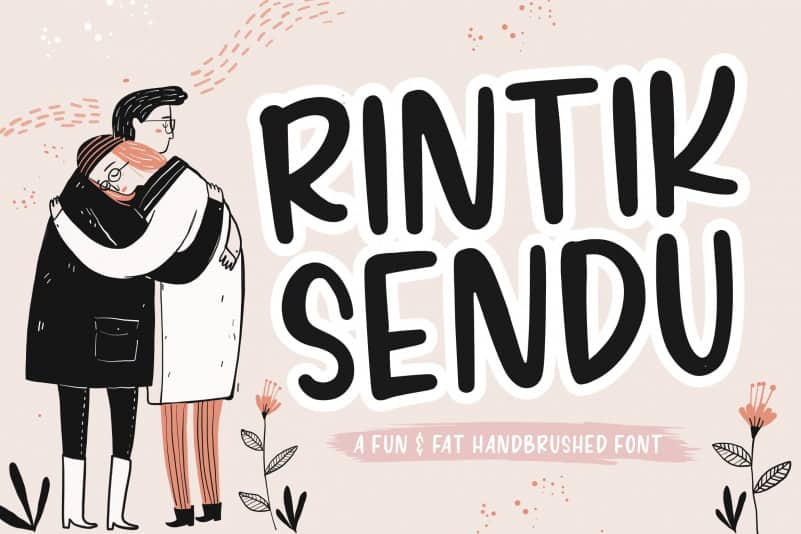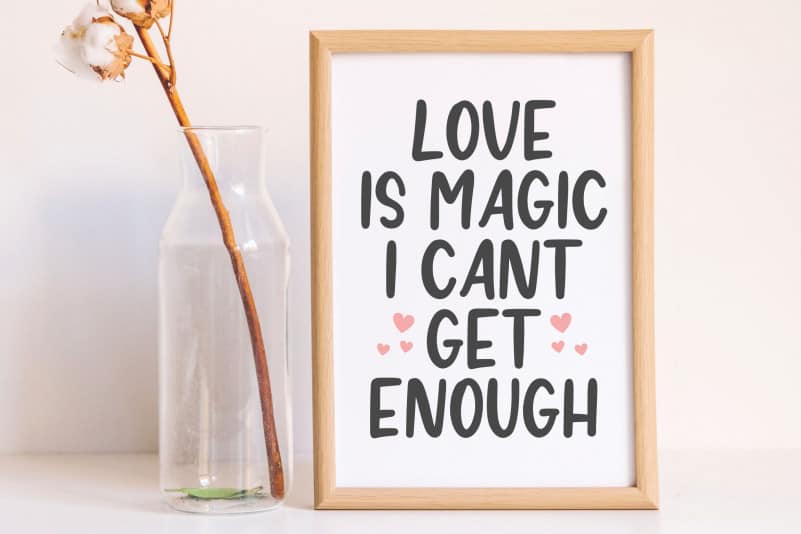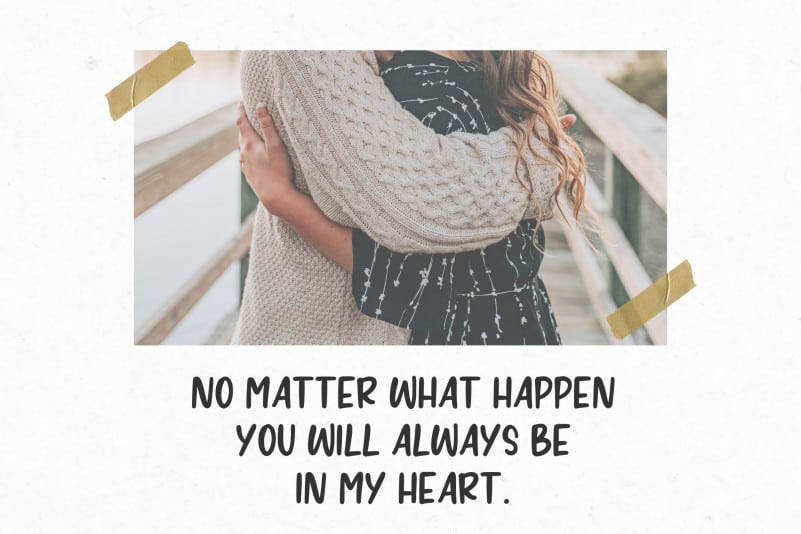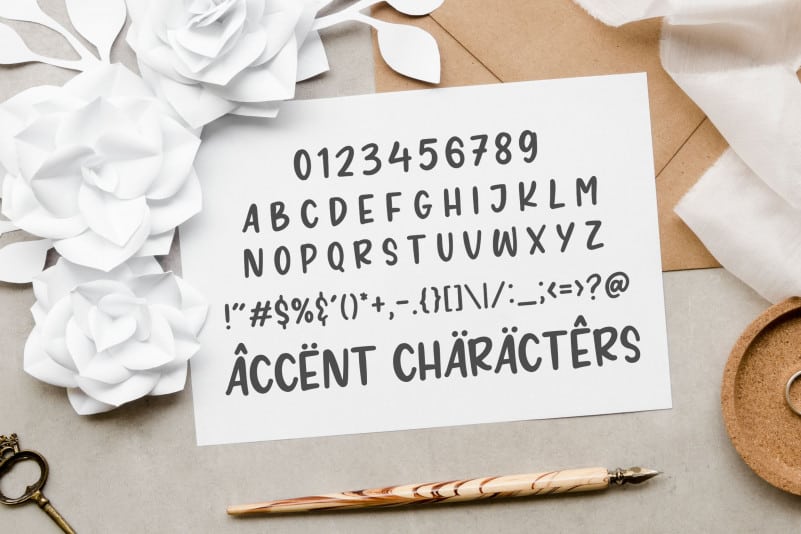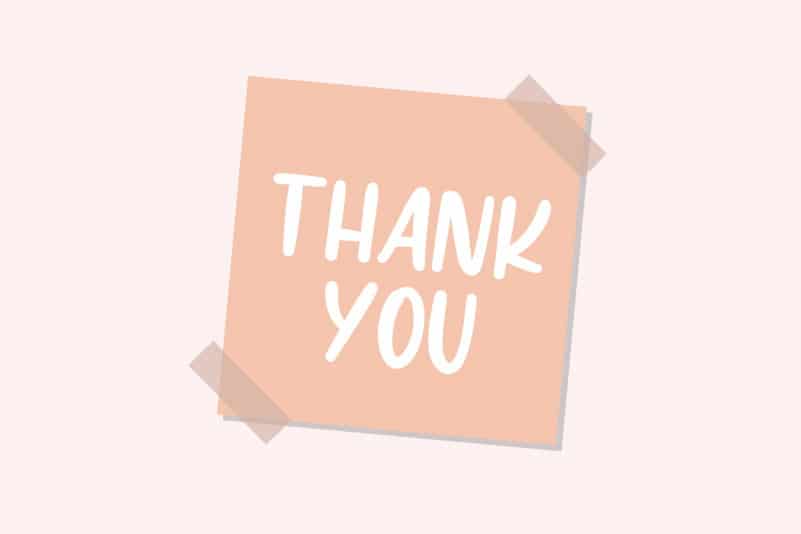
Rintik Sendu Handbrushed Font
Proudly Present, Rintik Sendu Handbrushed Font.
Rintik Sendu is a Fun & Fat Handbrushed Font.
It is perfect for product packaging, branding project, megazine, social media, wedding, or just used to express words above the background.